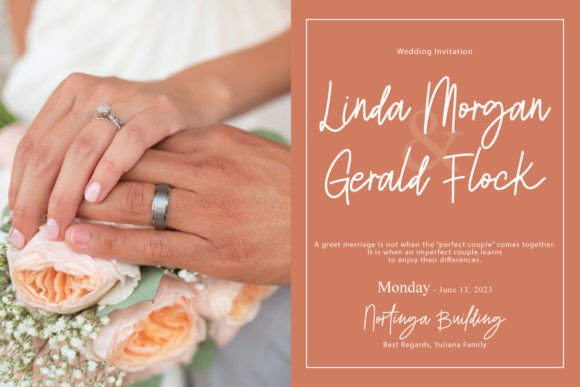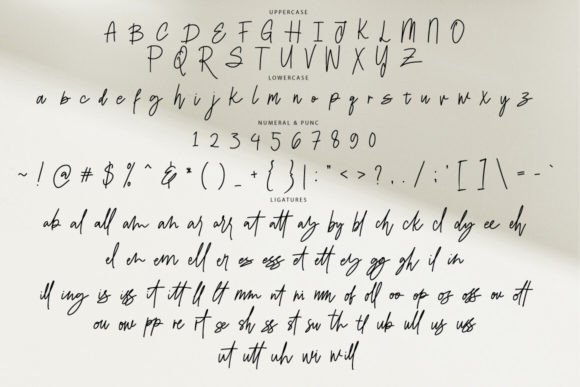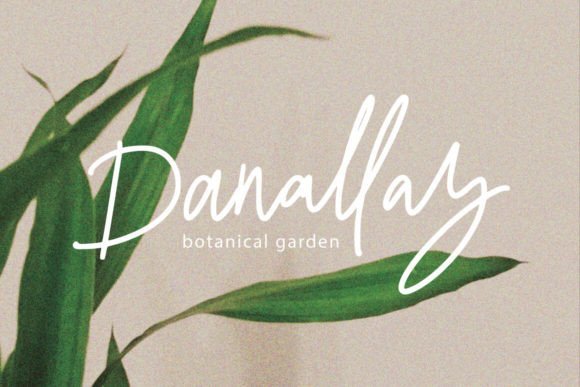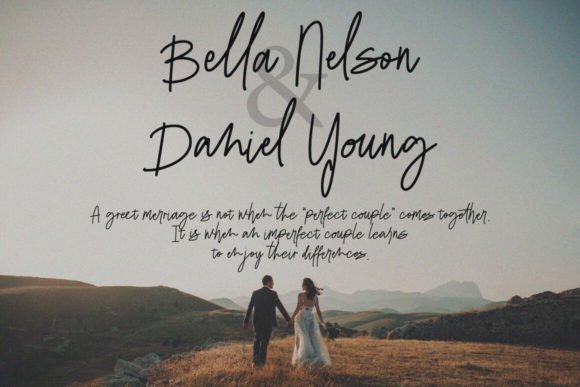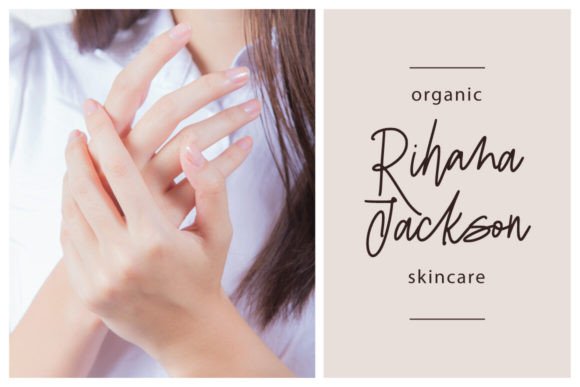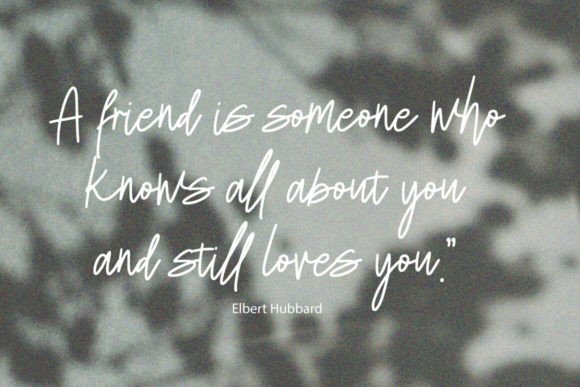
Introduction to Memossay Font
Have you ever stumbled upon the perfect font while working on a creative project, and it just takes it to the next level? That’s exactly what happens when you discover the Memossay Font. Its unique blend of handmade signature style, decorative characters, and dancing baseline creates an irresistible visual appeal that’s perfect for invitations, greeting cards, branding materials, business cards, quotes, posters, and more.
As a designer, you understand the value of having access to high-quality design resources that can elevate your work. The Memossay Font is one such treasure, offering over 200 glyphs and a range of Open Type features that can be accessed using Open Type savvy programs like Adobe Illustrator, Adobe InDesign, Adobe Photoshop, Corel Draw X version, and Microsoft Word. With PUA unicode support, you can easily access all the alternate characters, making it a valuable addition to your design toolkit.
Imagine being able to add a touch of elegance and sophistication to your design projects with just a few clicks. That’s what the Memossay Font offers, making it a must-have for designers who demand the best. Whether you’re working on a free download project or a paid commission, this font is sure to impress. So why settle for anything less when you can have the Memossay Font, a true gem in the world of design resources?
- Unique, hand-drawn design style sets Memossay Font apart from other fonts in its class, adding a touch of creativity to your projects.
Honest Review: Memossay Font
I recently stumbled upon the Memossay Font while searching for a unique design resource for a creative project. I was excited to give it a try, and I must say it’s been a pleasant experience.
Here’s what I like about the Memossay Font: ✨
- Its high-quality design makes it perfect for any creative project, from print to digital media.
- The transparent background gives me flexibility to customize the font to fit my design needs.
However, I did encounter some limitations: ⚠️
- The font may not be suitable for body text due to its ornate design.
- Some characters may not be as legible as I’d like, especially at smaller font sizes.
Overall, I’m impressed with the Memossay Font. It’s a great addition to any designer’s toolkit, and I appreciate the designer’s commitment to making high-quality design resources available for free. I would definitely recommend it for creative projects where a unique, eye-catching font is needed.
To get the most out of the Memossay Font, consider using it in conjunction with a transparent background to create a clean and modern design. You can also experiment with different font sizes and styles to add visual interest to your design.
Common Use Cases for Memossay Font
The Memossay Font is a versatile design resource that can be used in a variety of creative projects, including logos, social media graphics, and marketing materials. Its high-quality design makes it a great choice for any project where a professional look is desired.